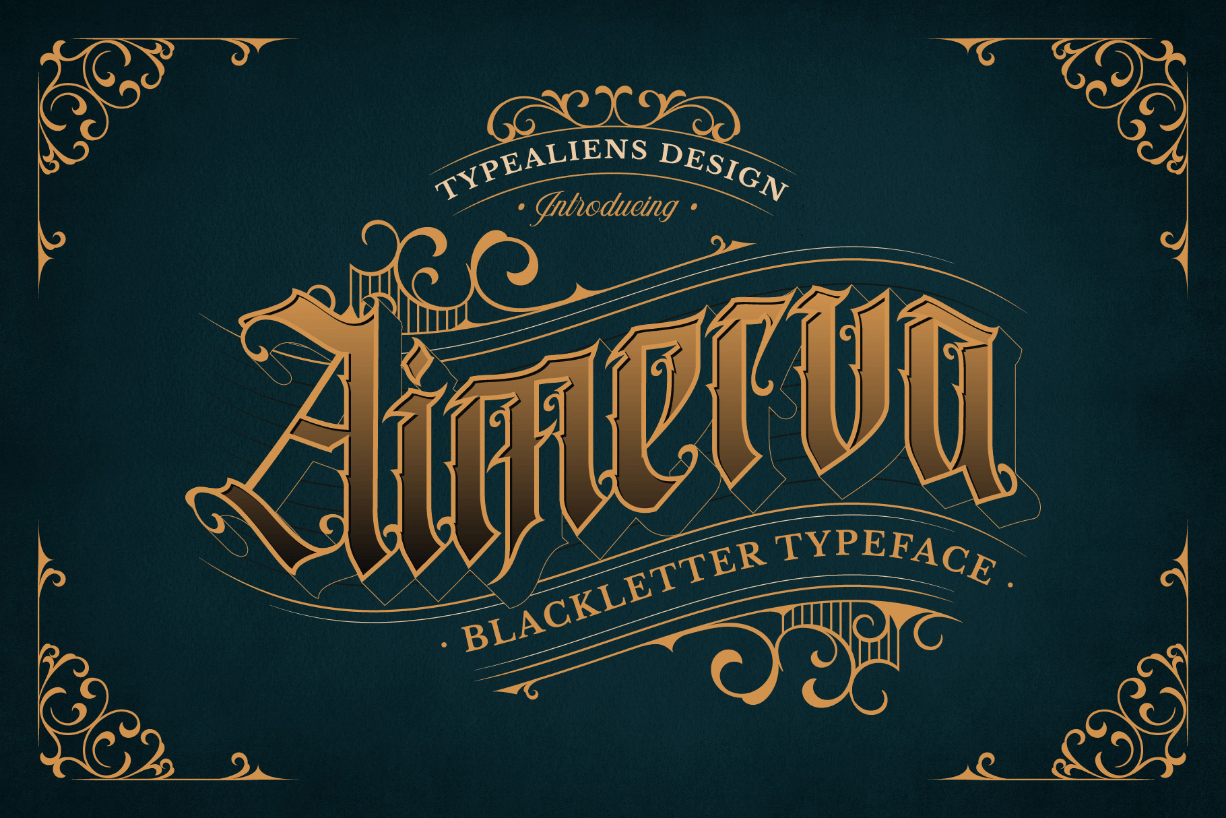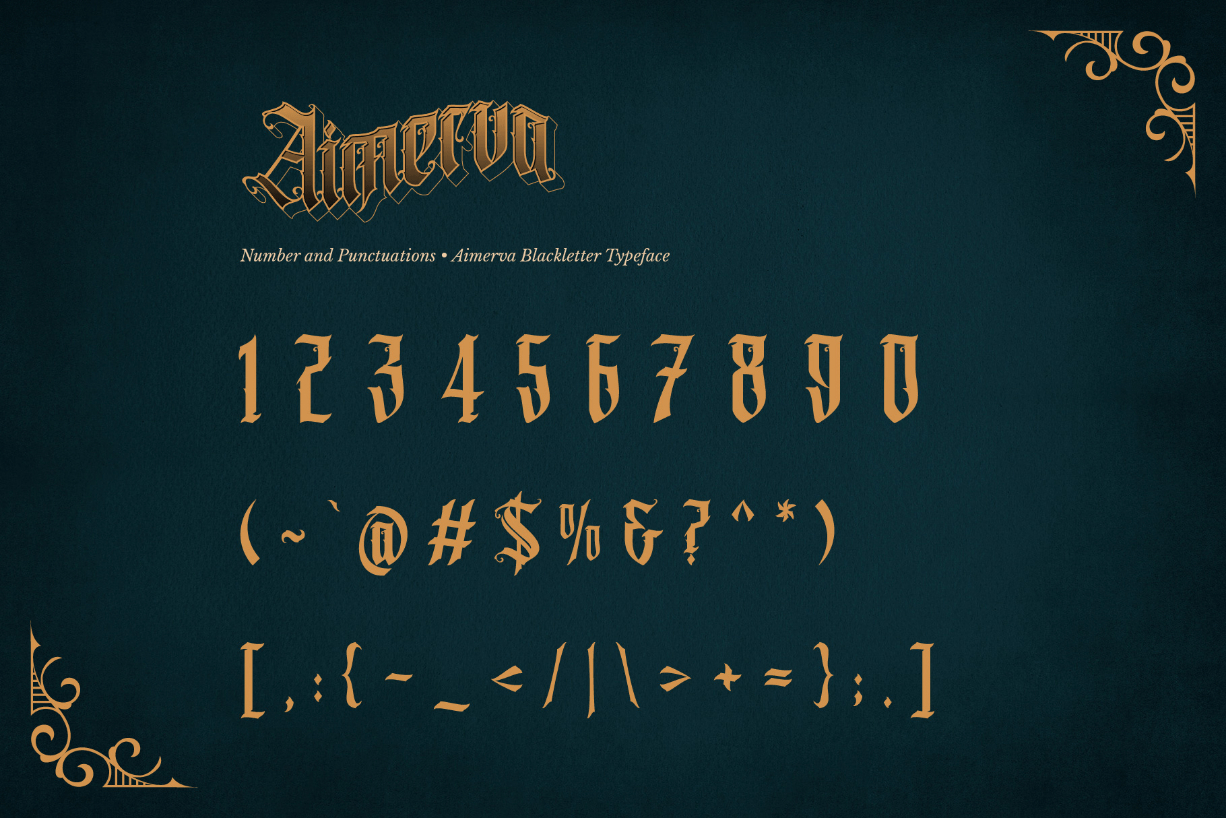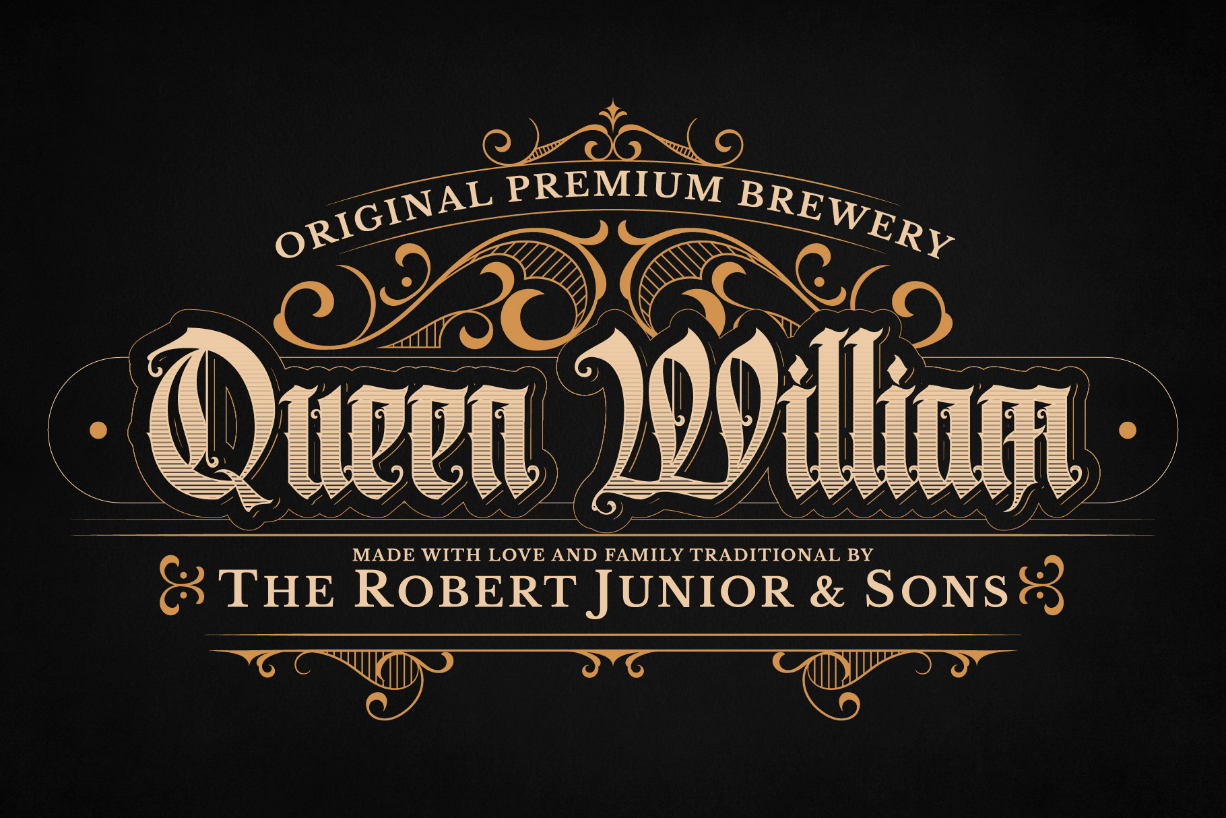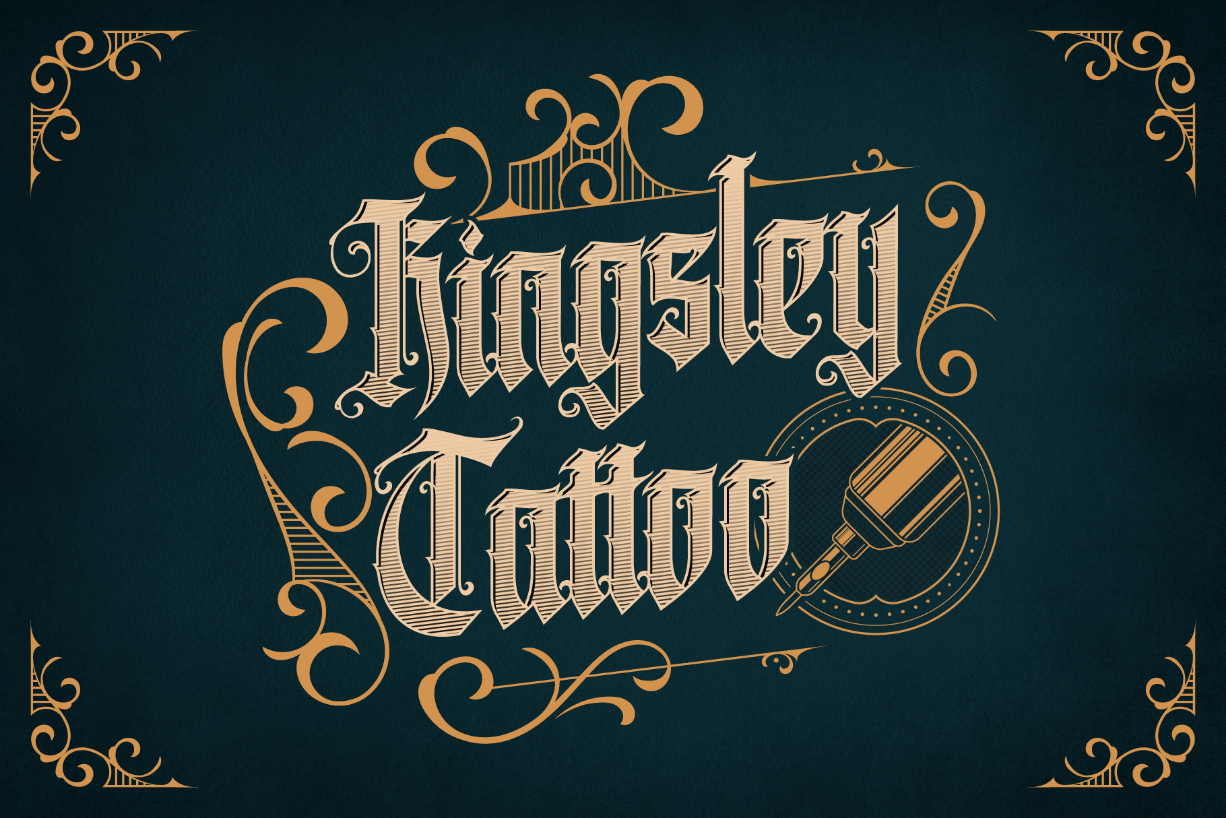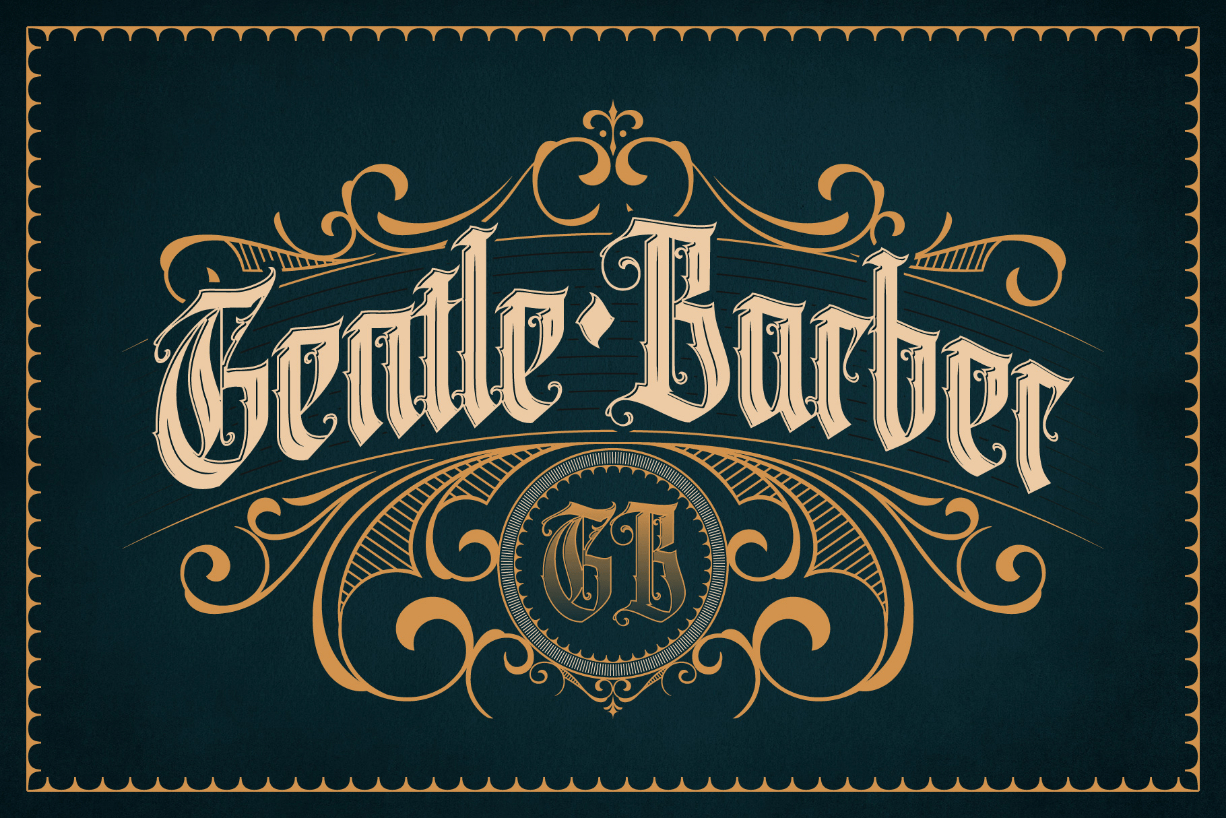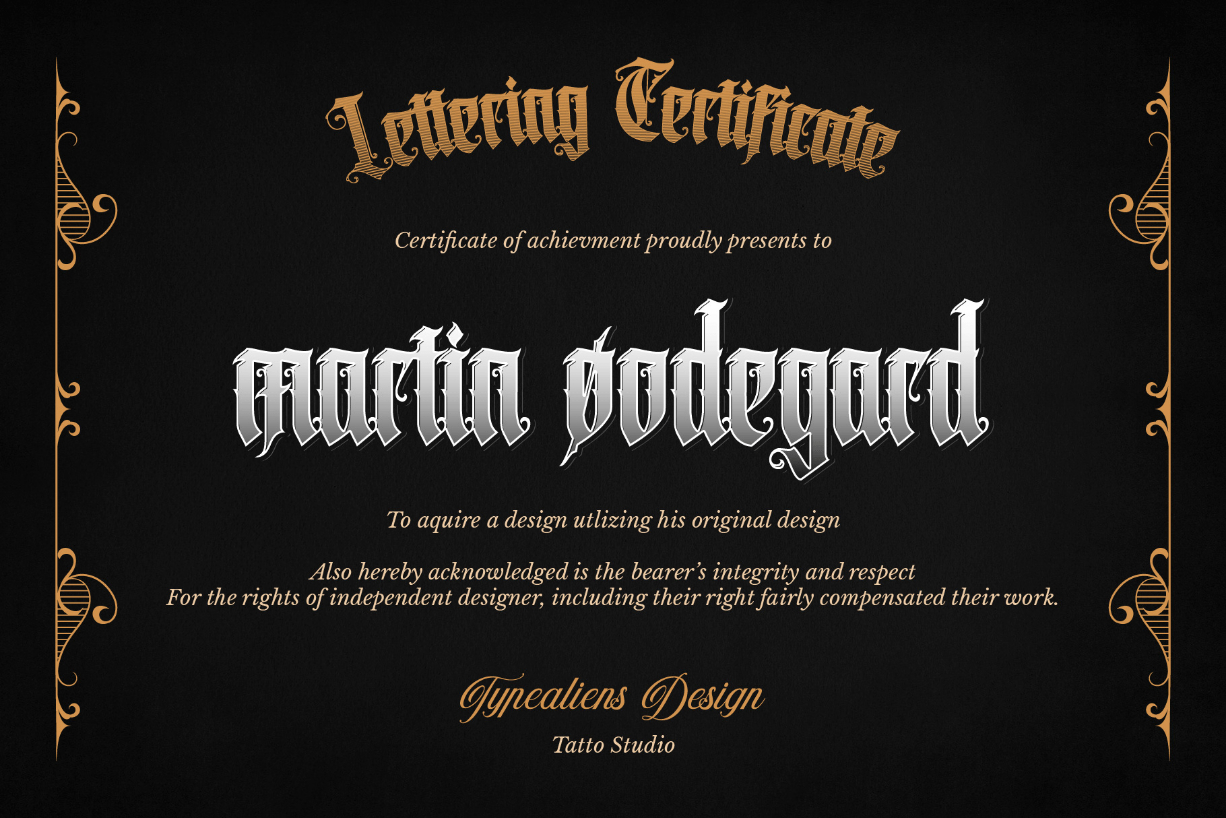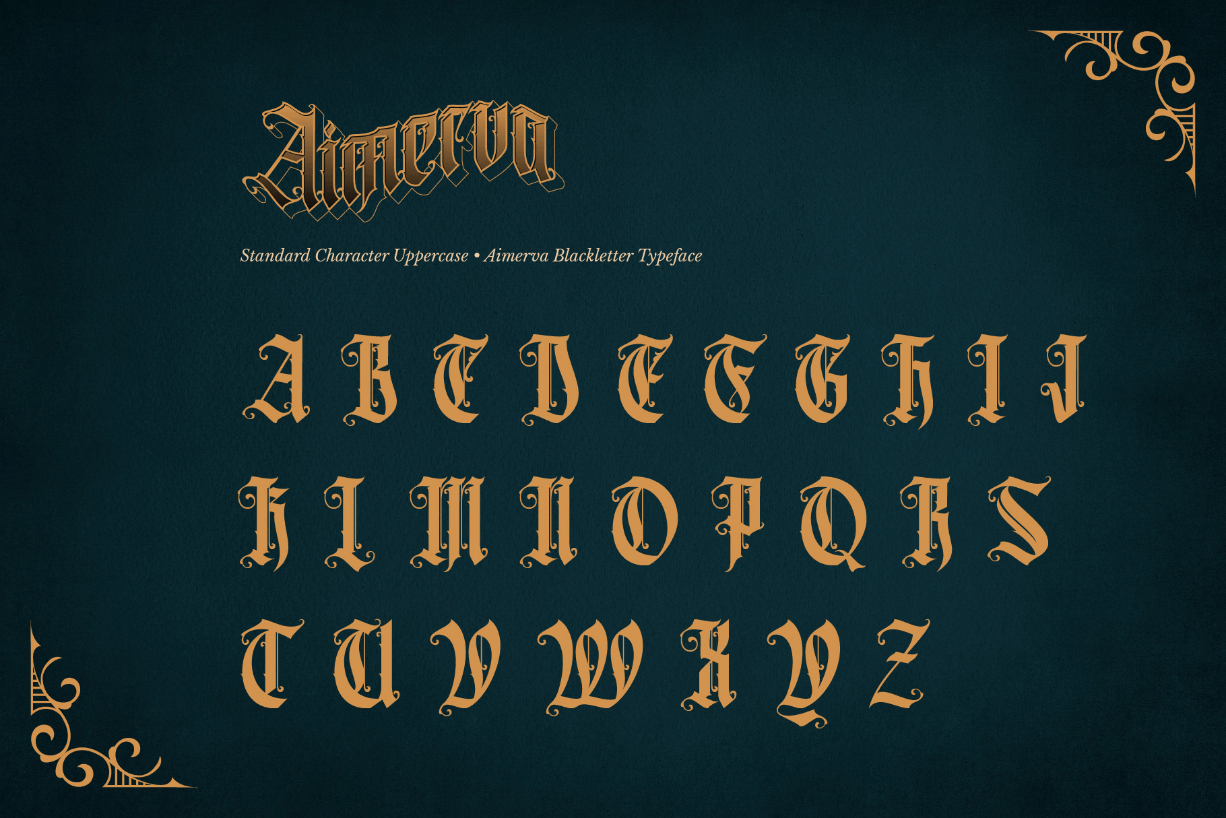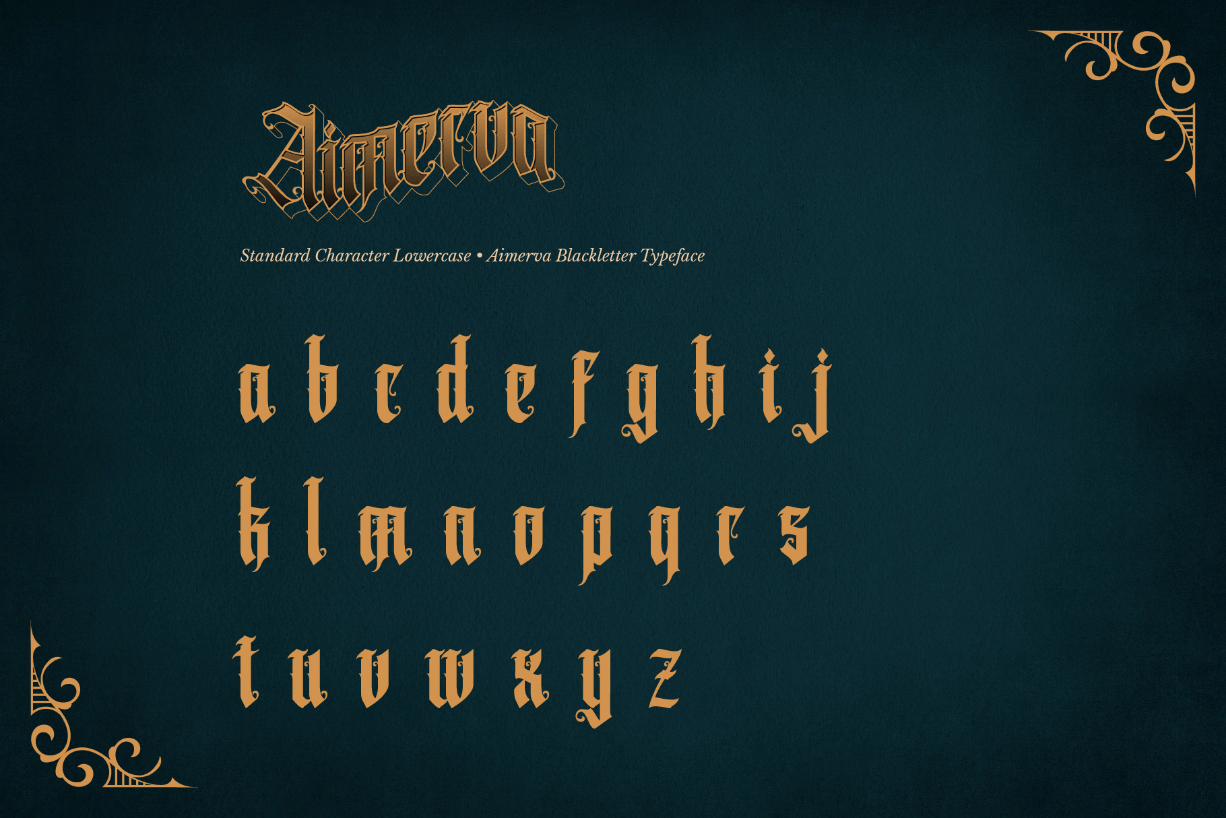
Aimerva Font
About Aimerva Font
Aimerva is a blackletter font with a few decorative modifications and memorable floral features. A primarily vintage font, Aimerva is perfect for classic designs that support liquor brands or tattoo studios, but it can also be used for modern and elegant projects.